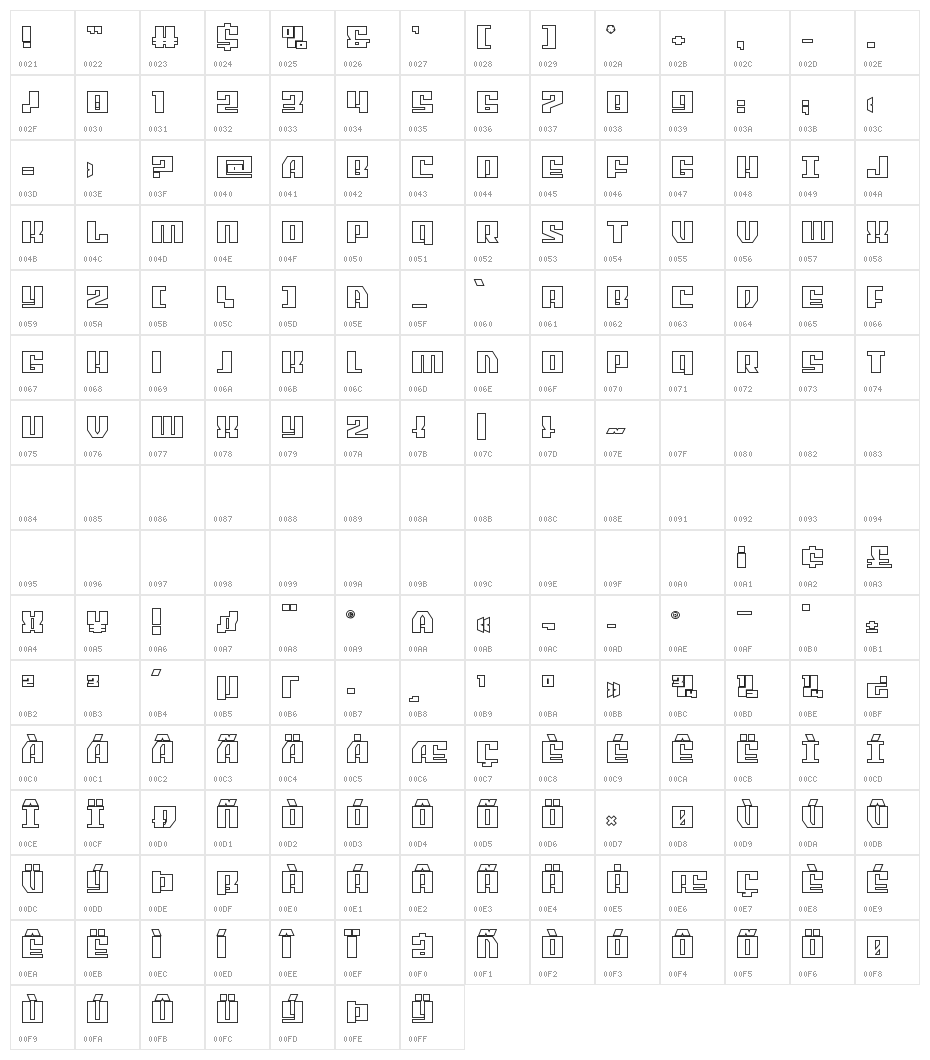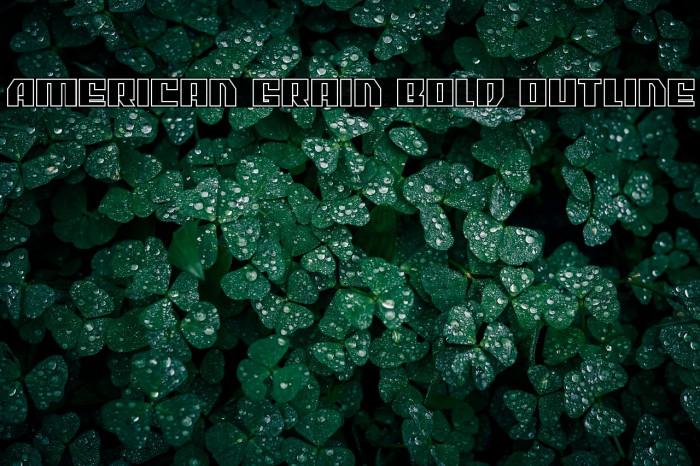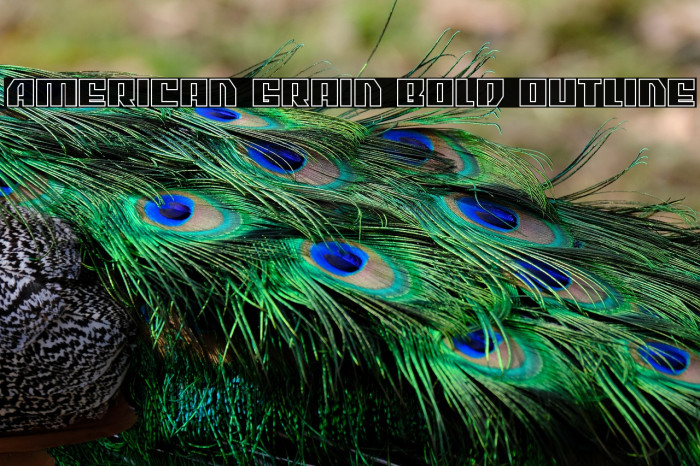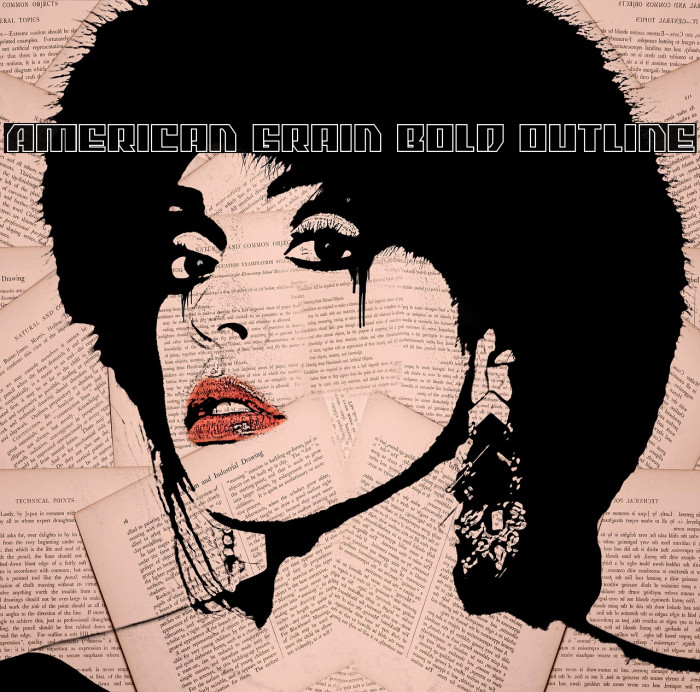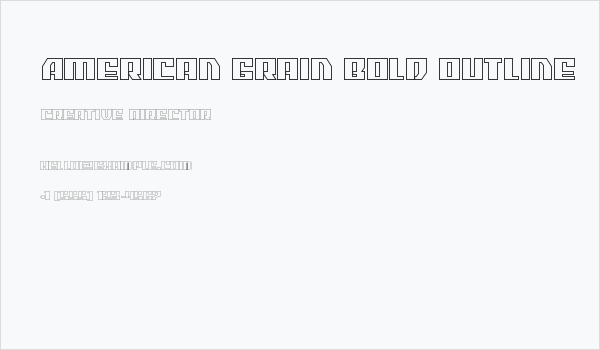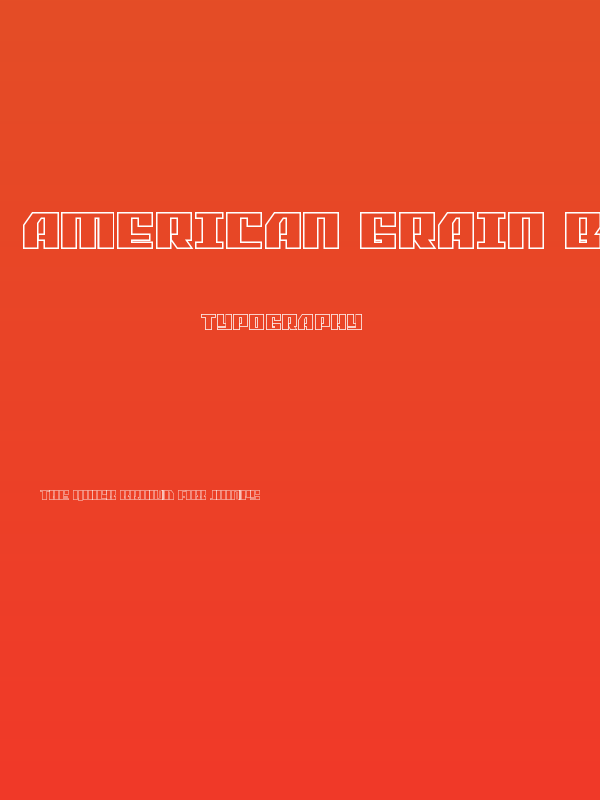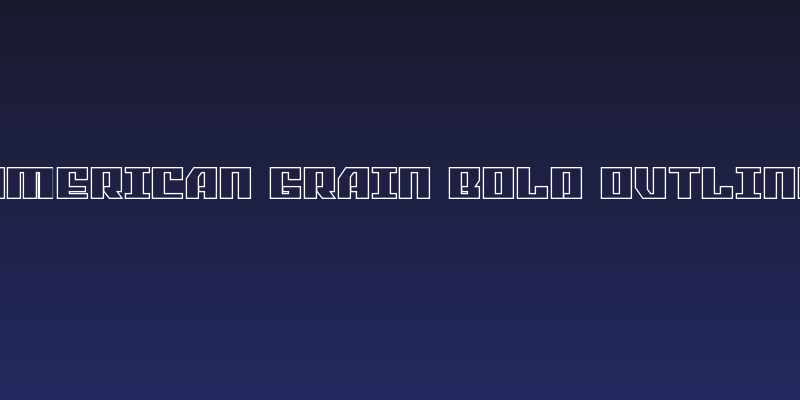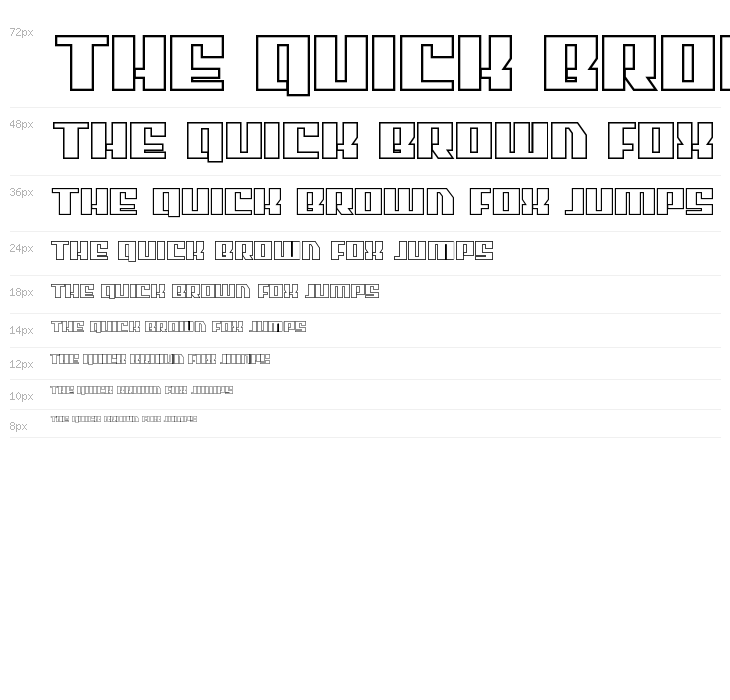
American Grain Bold Outline Font
American Grain Bold Outline Description
This font features a bold, geometric outline style with a strong presence. Each character is designed with sharp angles and a blocky structure, giving it a modern and industrial feel. The outline effect creates a sense of depth and dimension, making it stand out in any design. The uppercase and lowercase letters maintain a consistent style, while the numerals and special characters complement the overall aesthetic. This font is ideal for projects that require a bold statement and a contemporary look.
| Proposed Projects | Ideal for branding, posters, headlines, and any design needing a strong, modern impact. |